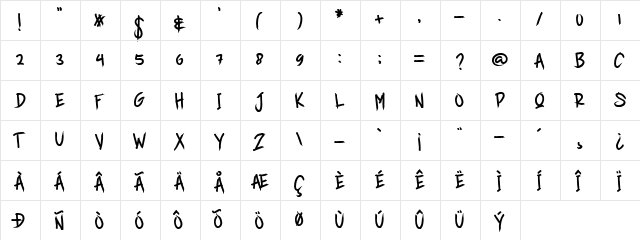
IRON RANGER Regular
| Designer | AMINMARIO 2020 |
Design Context for IRON RANGER Typeface
IRON RANGER is a composed and adaptable typeface that performs quietly and consistently across a wide range of design contexts.